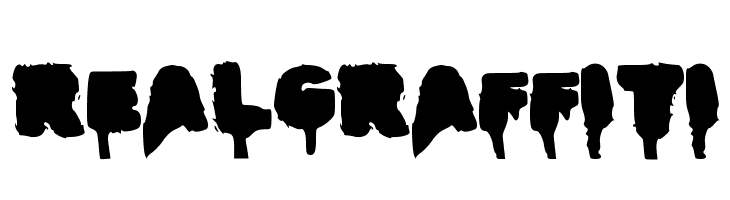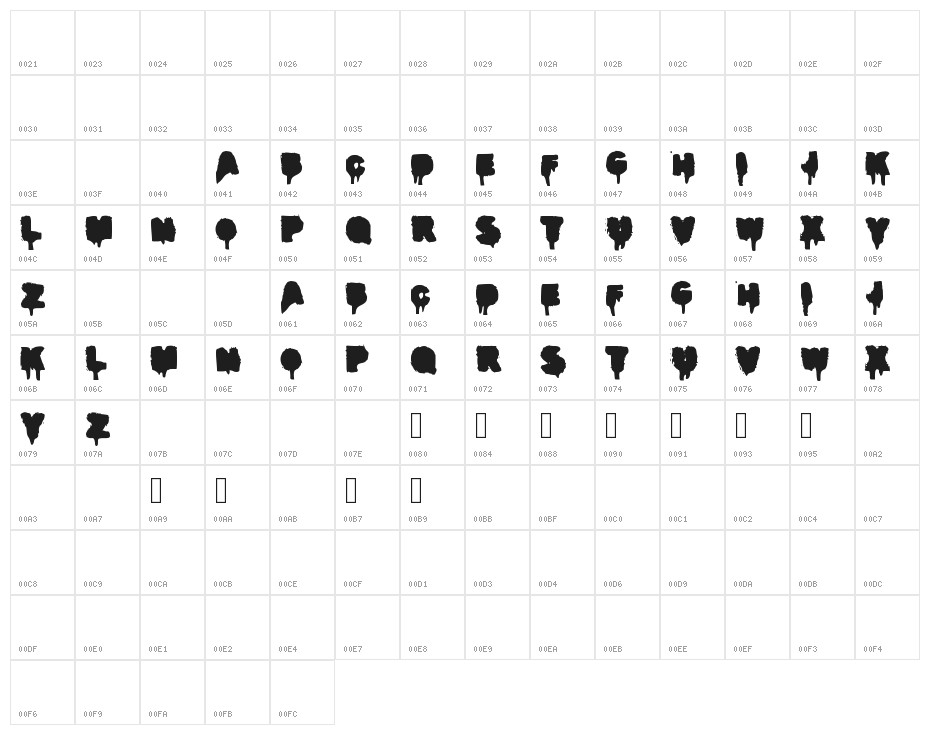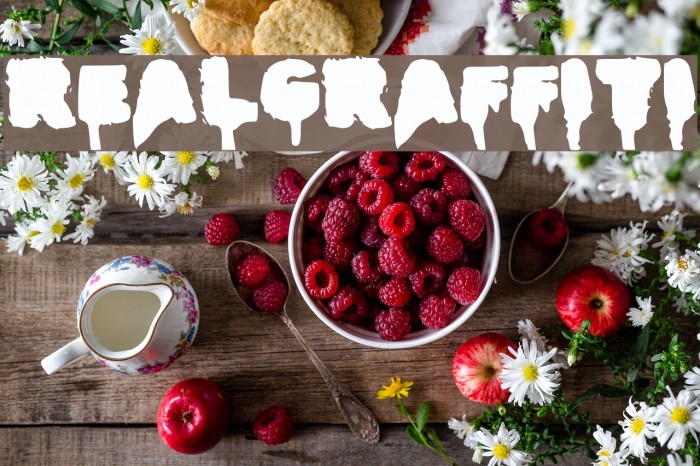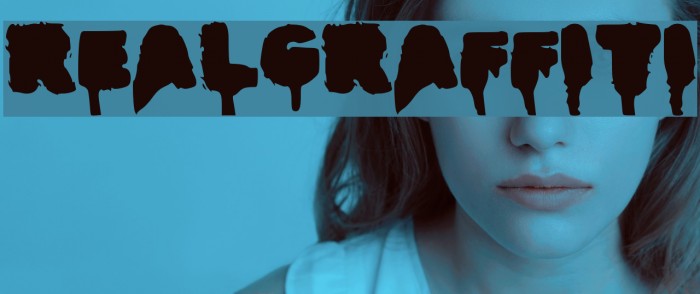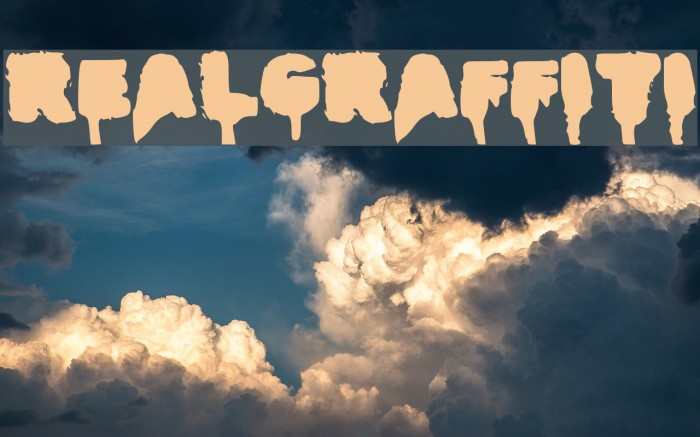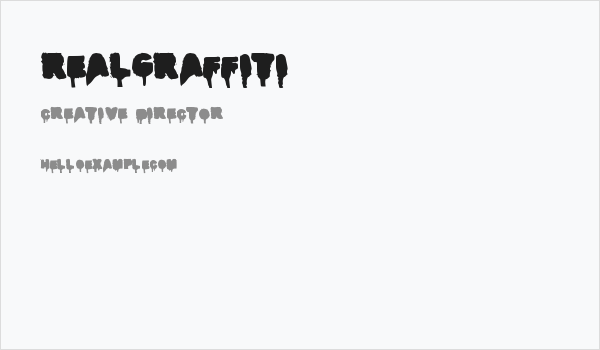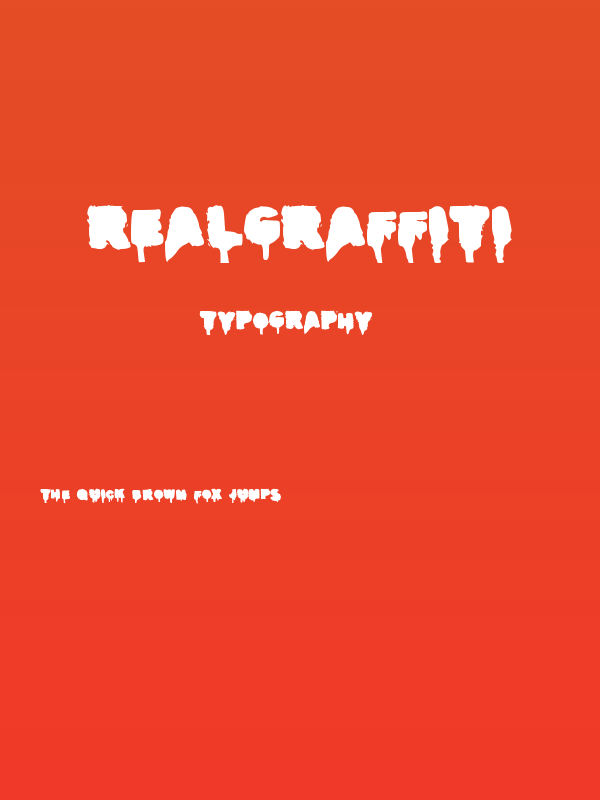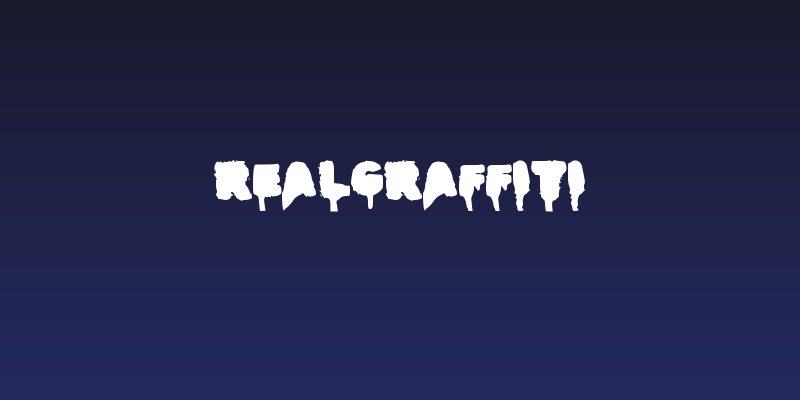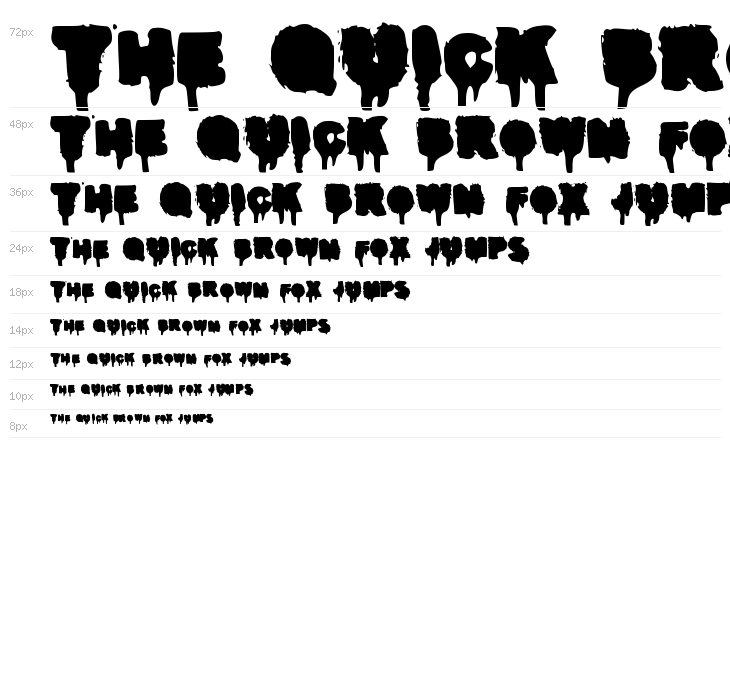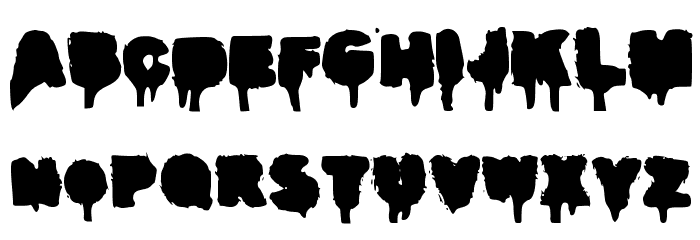
RealGraffiti Font
RealGraffiti Description
This font captures the raw and edgy essence of street art with its bold, dripping letterforms that mimic the look of spray paint. Each character appears as if it is melting or dripping, adding a dynamic and rebellious feel. The uppercase letters are particularly striking, with exaggerated curves and uneven edges that enhance the graffiti aesthetic. The font's design is consistent across both uppercase and lowercase letters, maintaining a cohesive style. Its unique appearance makes it ideal for projects that require a bold statement or an urban vibe.
| Overall Style | Urban, Edgy, Rebellious |
| Proposed Projects | Perfect for street art-inspired designs, music album covers, event posters, and urban-themed branding. |